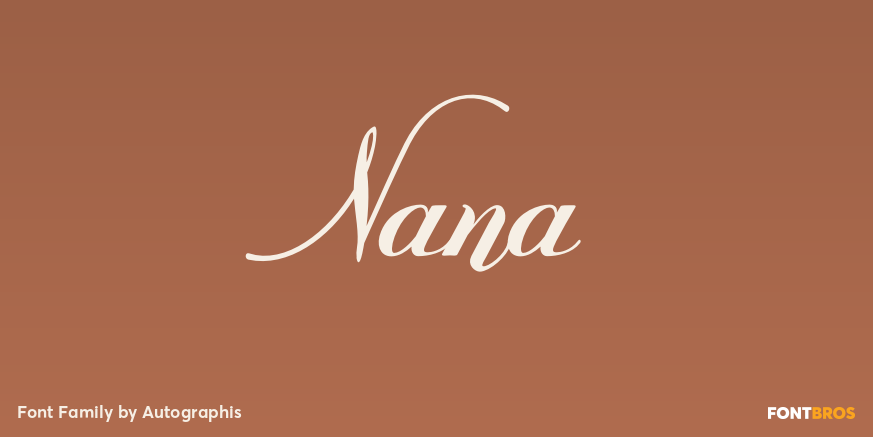
Nana
Nana is a classic joining script with long ascenders and descenders, that is based on a set of unique but forgotten initials that were designed in the roaring 20s and 30s in Paris.